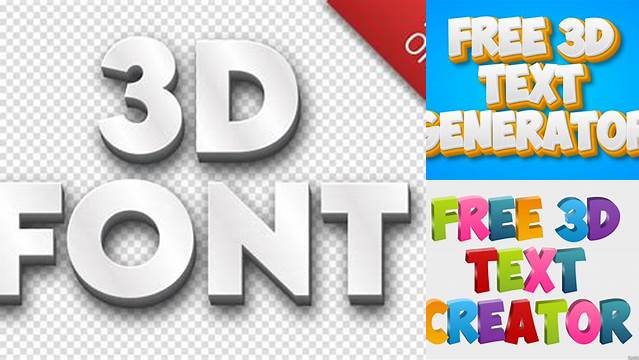
Free Font Generator: Create 3D Text Effects
Hey everyone! Are you looking to add some serious pizzazz to your designs? Want to make your text jump off the page (or screen!)? Well, you've come to the right place! In this article, we're diving deep into the world of font generators and how you can use them to create stunning 3D text effects, absolutely free. We're talking about transforming your ordinary words into eye-catching masterpieces that will grab attention and leave a lasting impression. Whether you're a graphic designer, a content creator, or just someone who loves to play around with fonts, this guide is for you. So, buckle up and let's explore the awesome possibilities of 3D text!
Why 3D Text Effects? The Power of Visual Impact
Let's face it, in today's visually driven world, standing out from the crowd is crucial. And that's where 3D text effects come in! Think about it: we're constantly bombarded with information, so anything that can capture our attention quickly and effectively is a winner. 3D text does exactly that. It adds depth, dimension, and a touch of realism to your words, making them more engaging and memorable. Imagine a logo with a subtle 3D effect, or a headline that pops right off the page – that's the power of 3D text. But the impact of 3D text effects extends far beyond just aesthetics. They can also:
- Enhance Brand Identity: A distinctive 3D text style can become a signature element of your brand, helping you create a consistent and recognizable visual identity.
- Improve Readability: In some cases, 3D effects can actually make text easier to read, especially when used strategically to highlight key information.
- Increase Engagement: Visually appealing text is more likely to grab attention and hold the viewer's interest, leading to increased engagement with your content.
- Add a Professional Touch: Using 3D text effects can elevate the overall look and feel of your designs, giving them a polished and professional appearance.
Now, you might be thinking, "Okay, 3D text sounds cool, but isn't it complicated to create?" And that's where font generators come to the rescue! These amazing tools make it super easy to create stunning 3D text effects, even if you have no prior design experience. So, let's dive into how these generators work and how you can use them to unleash your creativity.
Font Generators: Your Gateway to 3D Text Magic
So, what exactly are font generators, and how do they work their magic? Simply put, font generators are online tools that allow you to create various text effects, including 3D, without the need for complex software or technical skills. They provide a user-friendly interface where you can input your text, choose from a range of styles and effects, and customize the output to your liking. Think of them as your personal text effect studio, right at your fingertips!
The beauty of these generators lies in their simplicity. Most of them operate on a straightforward principle:
- Input Your Text: You start by typing in the text you want to transform into a 3D masterpiece. This could be a headline, a logo, a quote, or anything else you can think of.
- Choose a Style: Next, you'll browse through a variety of pre-designed 3D text styles. This is where the fun begins! You can find everything from bold and futuristic fonts to elegant and classic designs. Many generators also allow you to customize aspects like font type, size, and color.
- Customize the Effects: This is where you really get to put your personal touch on things. You can adjust the depth of the 3D effect, add shadows, gradients, textures, and even lighting effects. The possibilities are virtually endless!
Font generators are incredibly versatile and cater to a wide range of needs. Whether you're designing a logo, creating eye-catching social media graphics, or adding flair to your website, these tools can help you achieve the perfect 3D text effect. And the best part? Many of them are completely free to use! We'll explore some of the top free options in the next section.
Free Font Generators: Unleash Your Creativity Without Breaking the Bank
Now, let's talk about the good stuff: free font generators! You don't need to spend a fortune to create amazing 3D text effects. There are plenty of fantastic online tools that offer a wide range of features without costing you a dime. Here are a few popular options to get you started:
- TextPro: This is a super user-friendly platform that boasts a vast library of text effects, including a great selection of 3D styles. You can easily customize colors, fonts, and textures to create the perfect look for your project. TextPro is a great option for beginners and experienced designers alike.
- Cool Text: As the name suggests, Cool Text is all about creating cool and stylish text effects. It offers a wide variety of 3D styles, along with other effects like gradients, shadows, and outlines. The interface is simple and intuitive, making it easy to get creative with your text.
With the wealth of free font generators available online, there's no limit to what you can create. So, go ahead, unleash your inner artist, and start transforming your ordinary words into extraordinary visual masterpieces. The world of 3D text effects awaits!